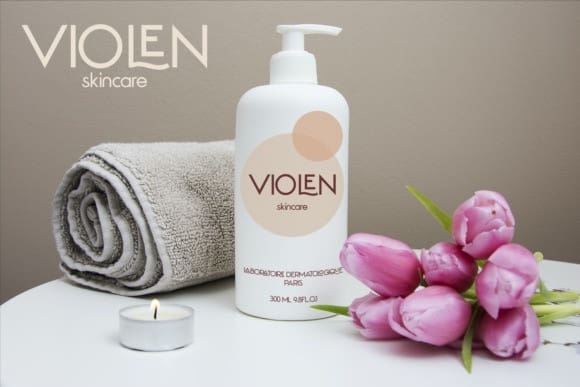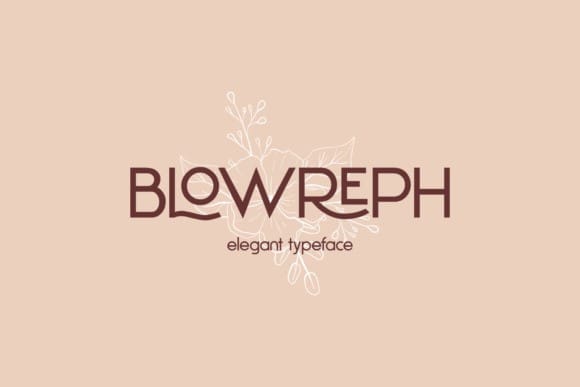
Blowreph Font
Blowreph Font is a clean and minimalistic sans serif font. It works great for logos, headlines, posters, packaging, branding, beauty, interiors, fashion, and more!